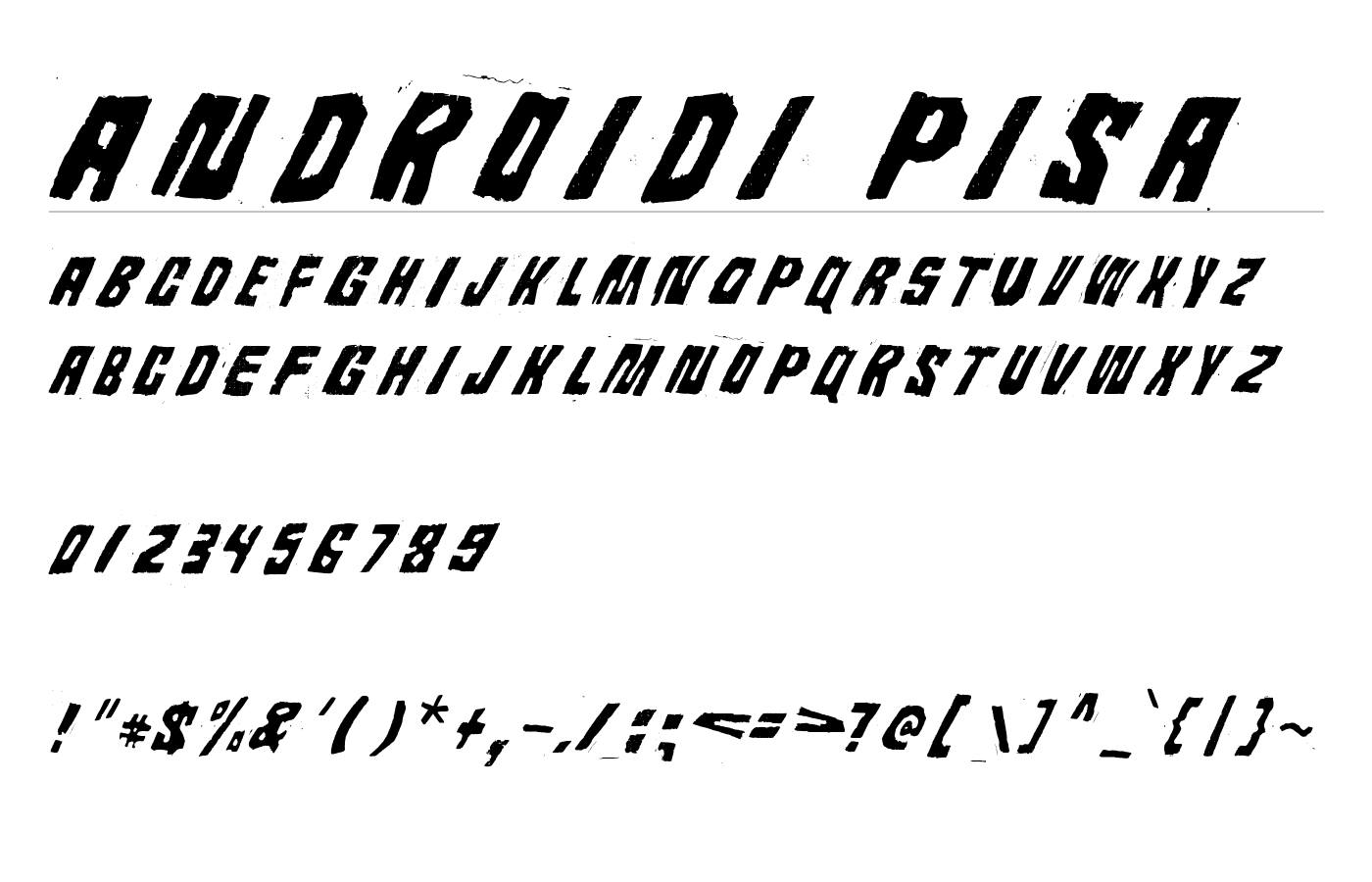
Androidi Pisa is a bold, condensed sans serif typeface with a dynamic, slanted design that conveys speed and energy. Its rough, textured strokes and uppercase-only characters give it a gritty, industrial feel, making it ideal for impactful headlines, sports branding, and edgy posters where a strong, modern statement is needed. This font stands out with its distinctive stylized letterforms that combine a sense of motion with a raw, urban edge.
Androidi Pisa Font
About Androidi Pisa Font